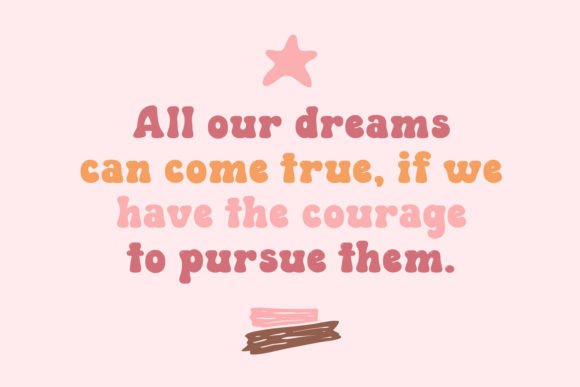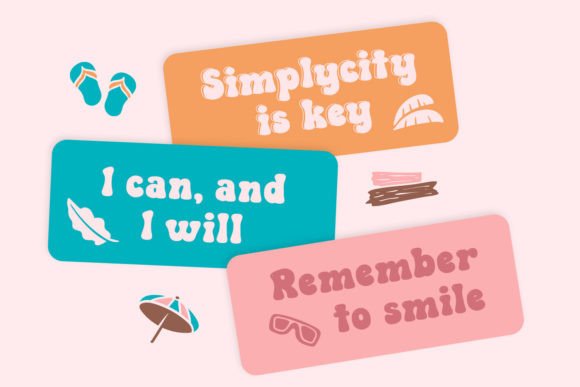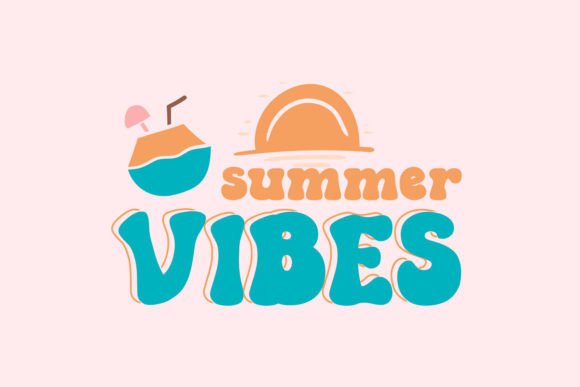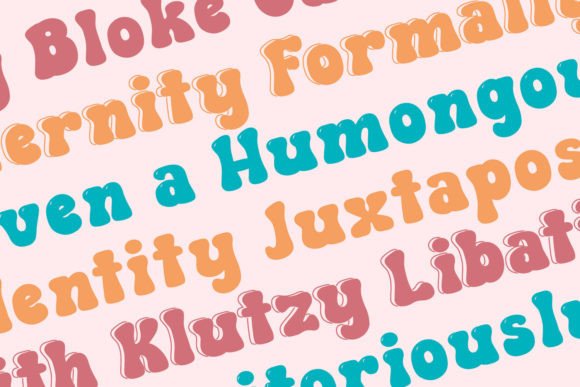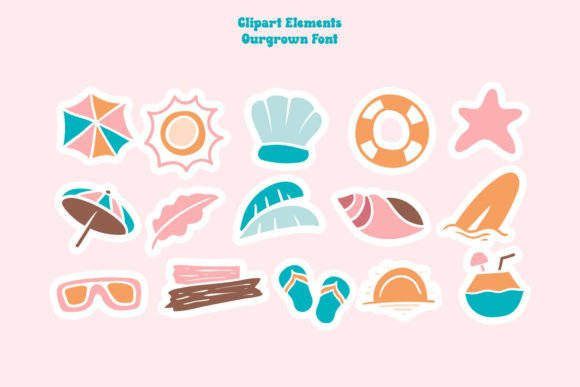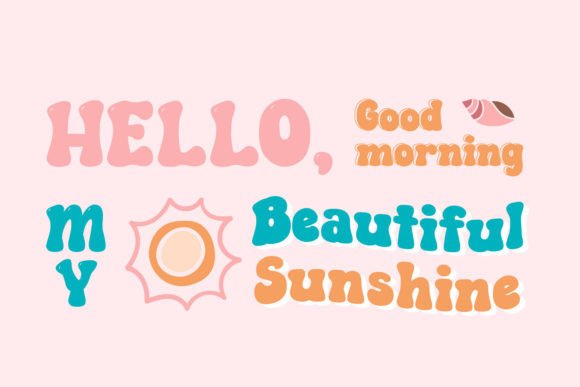
Introduction to Ourgrown Font
Ourgrown is the epitome of cute and beautiful.
Its soft curves and playful shapes evoke feelings of joy and whimsy, while its elegant lines and intricate details add a touch of sophistication Perfect for any design project that requires a touch of charm and elegance.
Key Features of Ourgrown Font